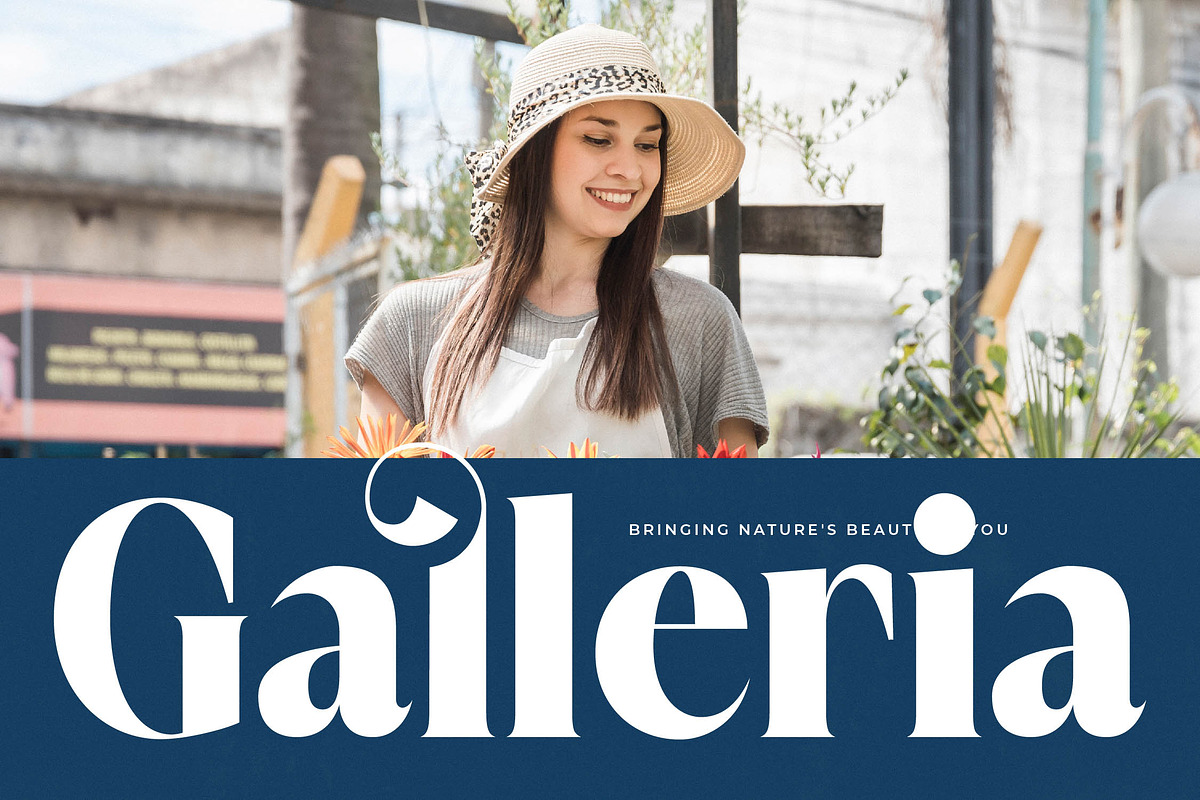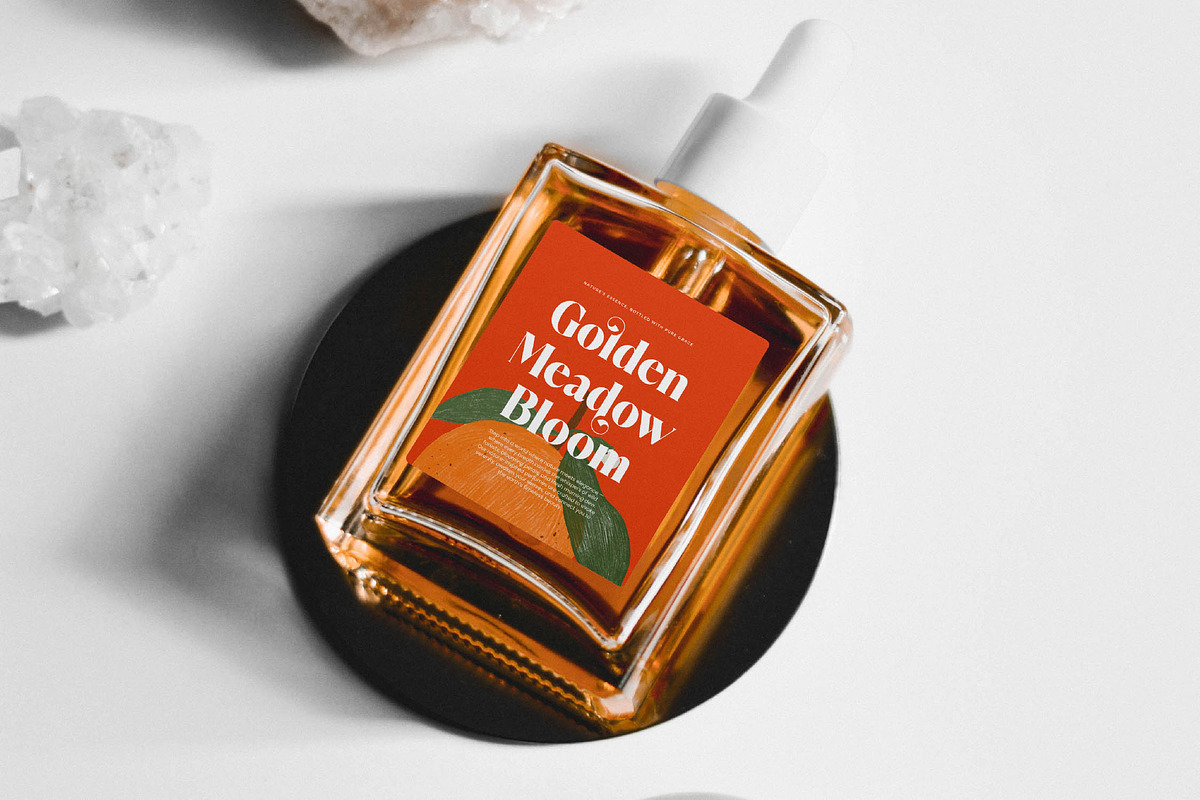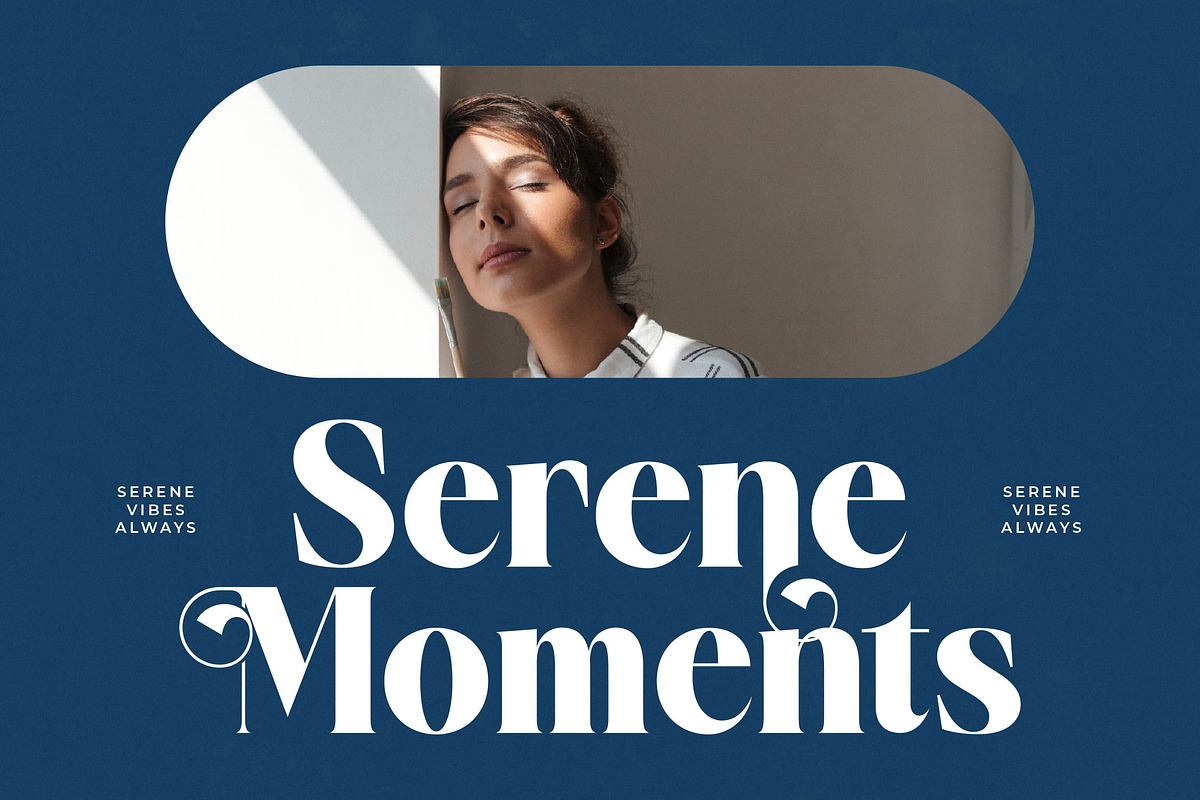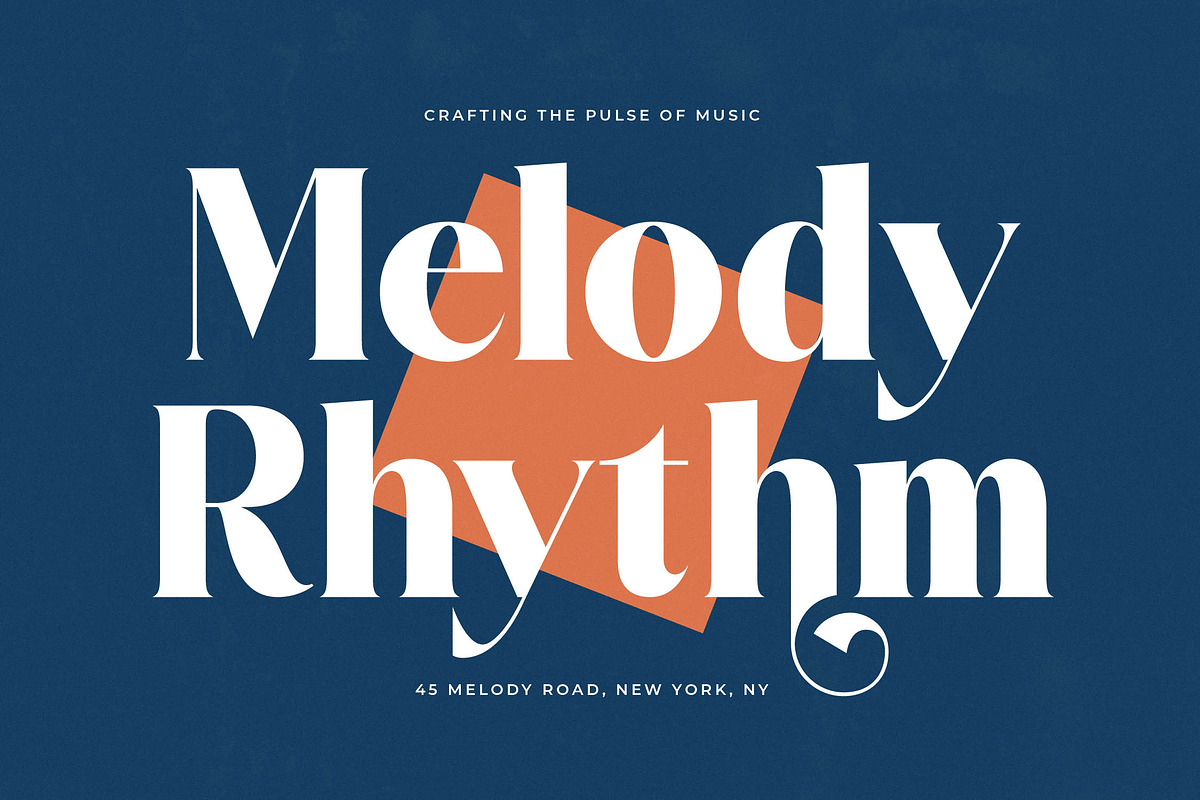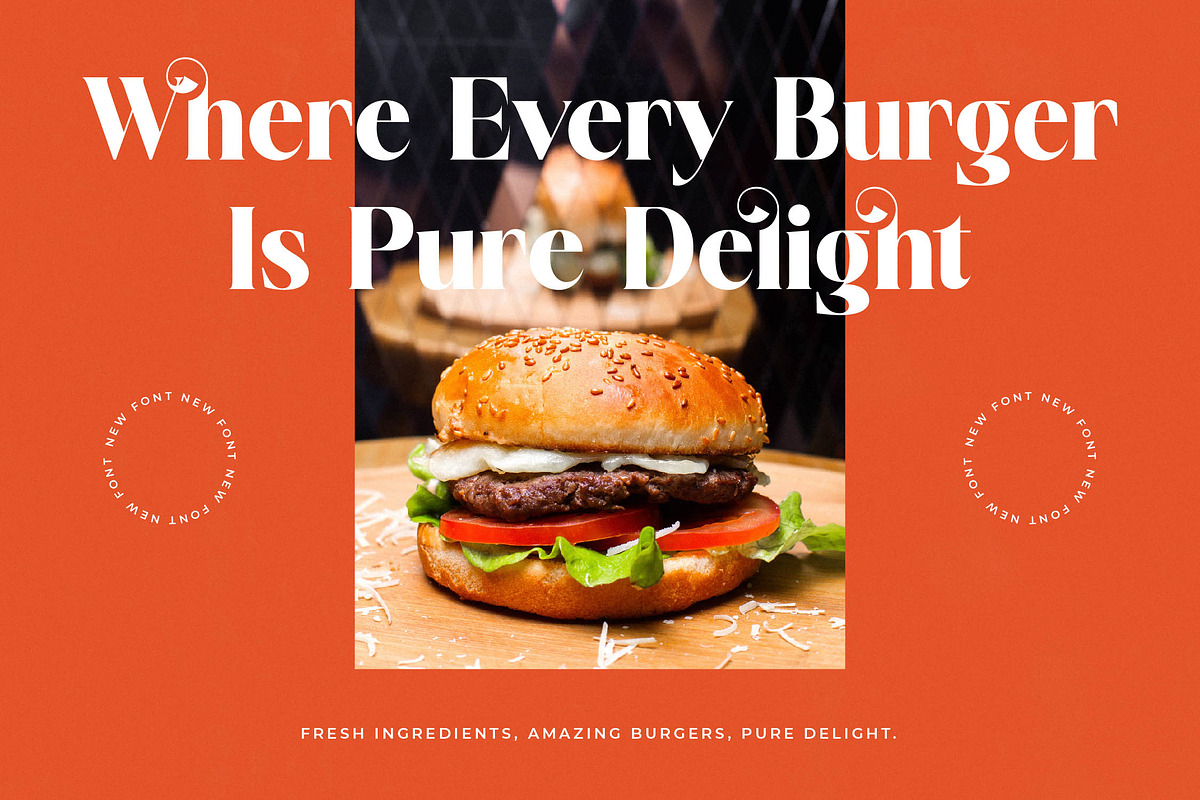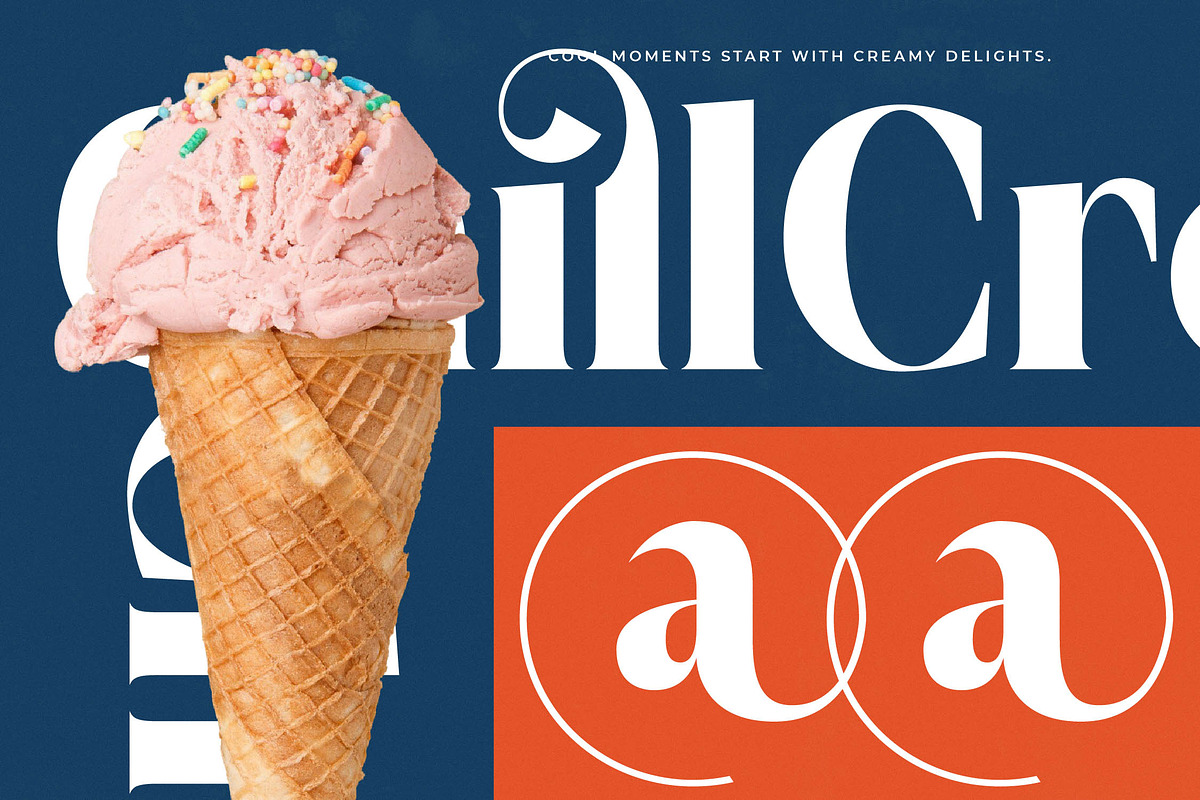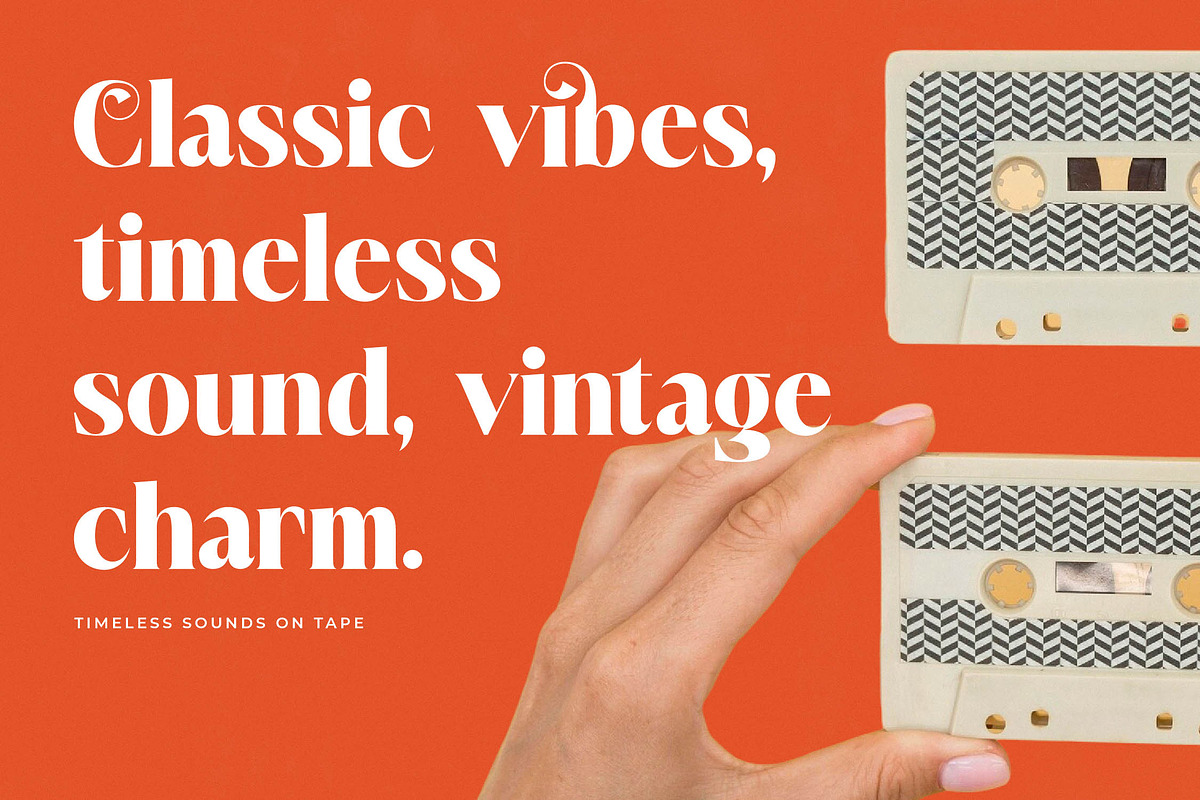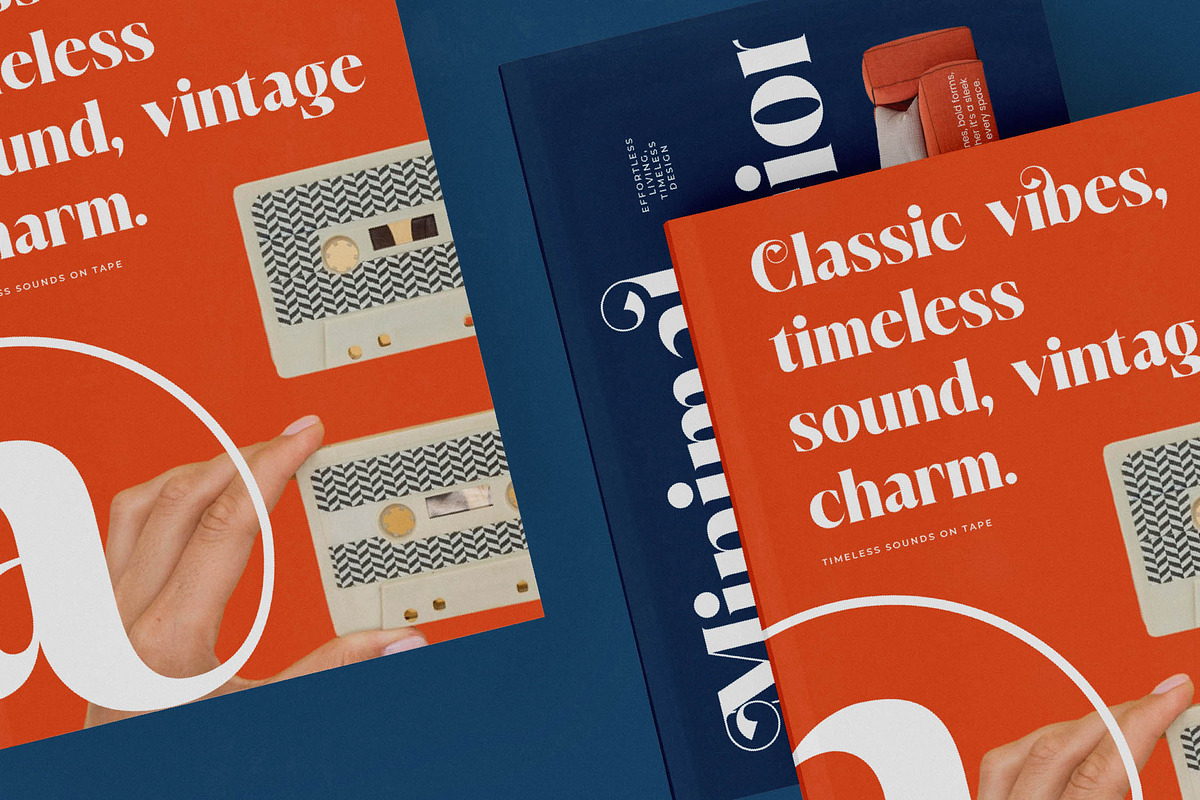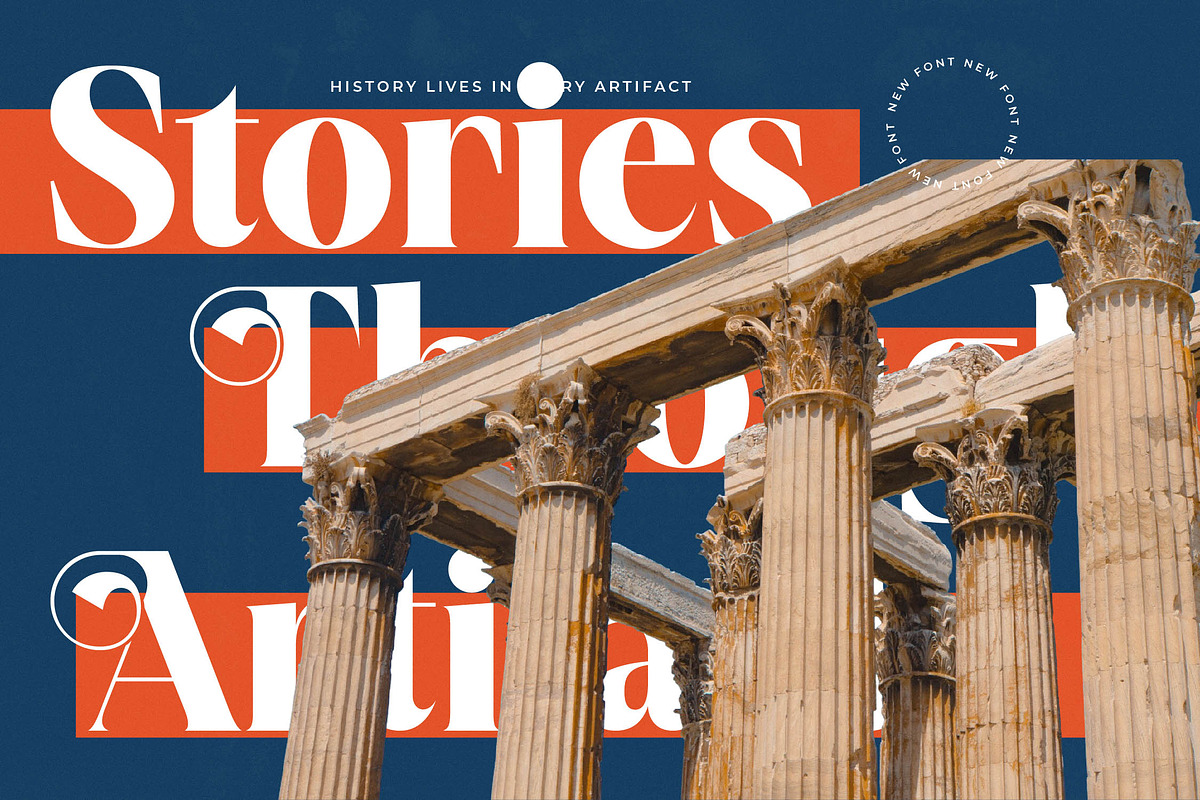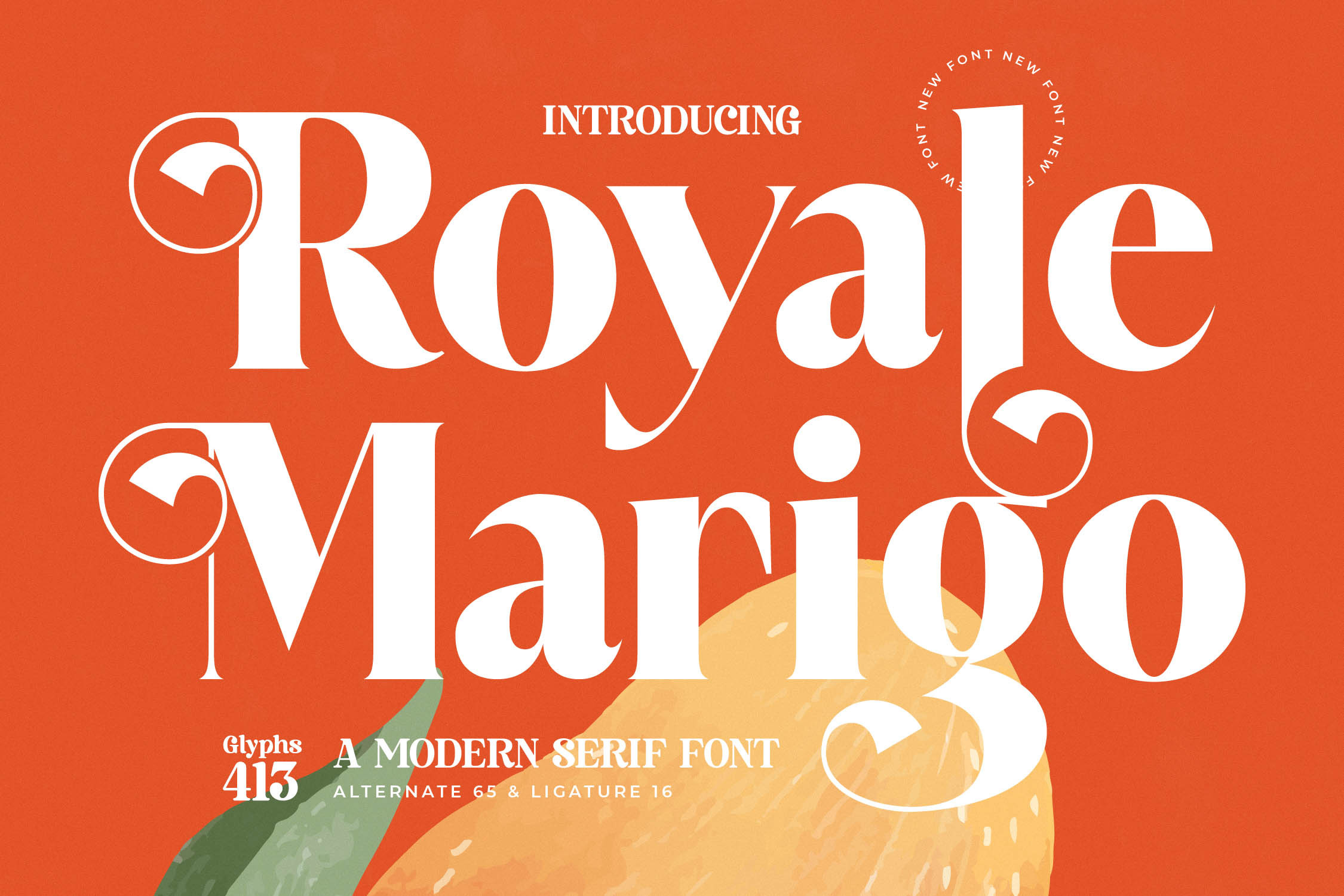
Royale Marigo Modern Serif Font
Elevate your creative projects with the timeless elegance and sophisticated charm of Royale Marigo, a typeface that perfectly balances grace with a bold presence. This font is meticulously crafted to transform every letterform into a masterpiece of contemporary design.
Drawing inspiration from the lush aesthetics of high-end fashion boutiques and botanical illustrations, this typeface captures a unique blend of organic curves and sharp, geometric precision. It evokes the feeling of a sun-drenched Mediterranean afternoon spent browsing vintage luxury magazines and artisanal crafts.
Characterized by its striking high-contrast serif terminals and fluid motions, this modern serif display is built for maximum branding impact. Its refined structure makes it a premier luxury typography choice for designers seeking an editorial font that commands attention while maintaining an air of effortless chic.
As the modern serif trend continues to dominate the visual landscape, this typeface stands out by offering character-driven typography that breaks away from the ordinary. It is perfectly aligned with the rising demand for editorial display fonts that bring a sense of heritage into a futuristic design context.
From creating a signature logo design to developing a cohesive branding identity, this font excels in diverse environments like high-stakes editorial layouts and luxury packaging. It is also a stunning choice for high-end wedding stationery and avant-garde fashion lookbooks that require a touch of class.
This comprehensive package includes over 400 glyphs, featuring a wide array of beautiful ligatures and unique alternates that allow for custom letter combinations. With elegant swashes and full multilingual support for international characters, your creative possibilities are truly limitless.
- Ligature 16 Alternate 65